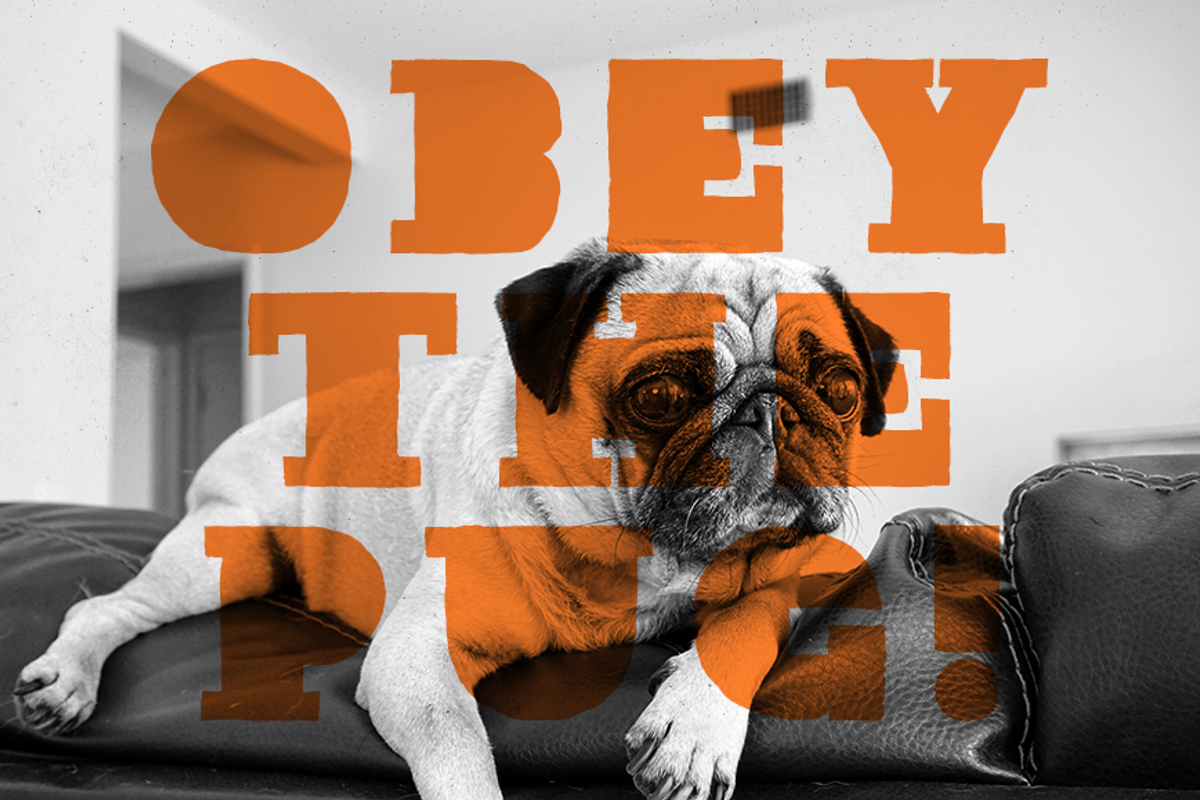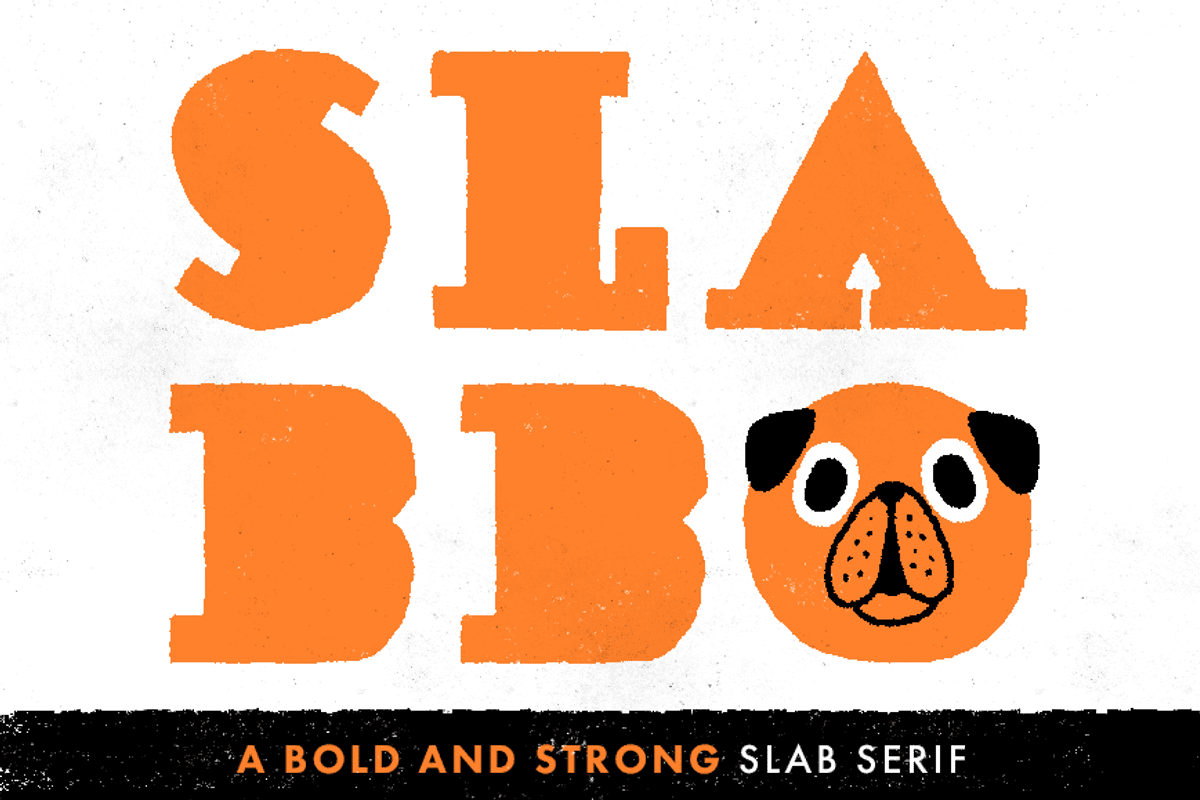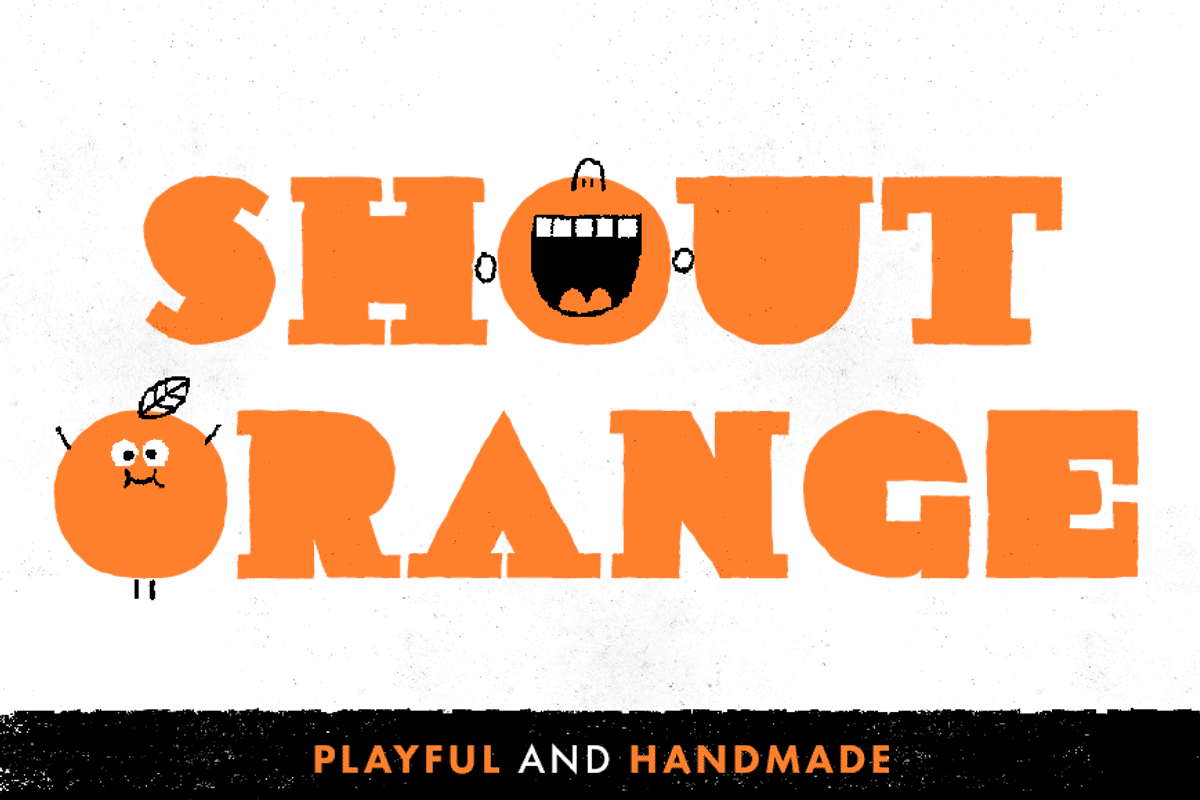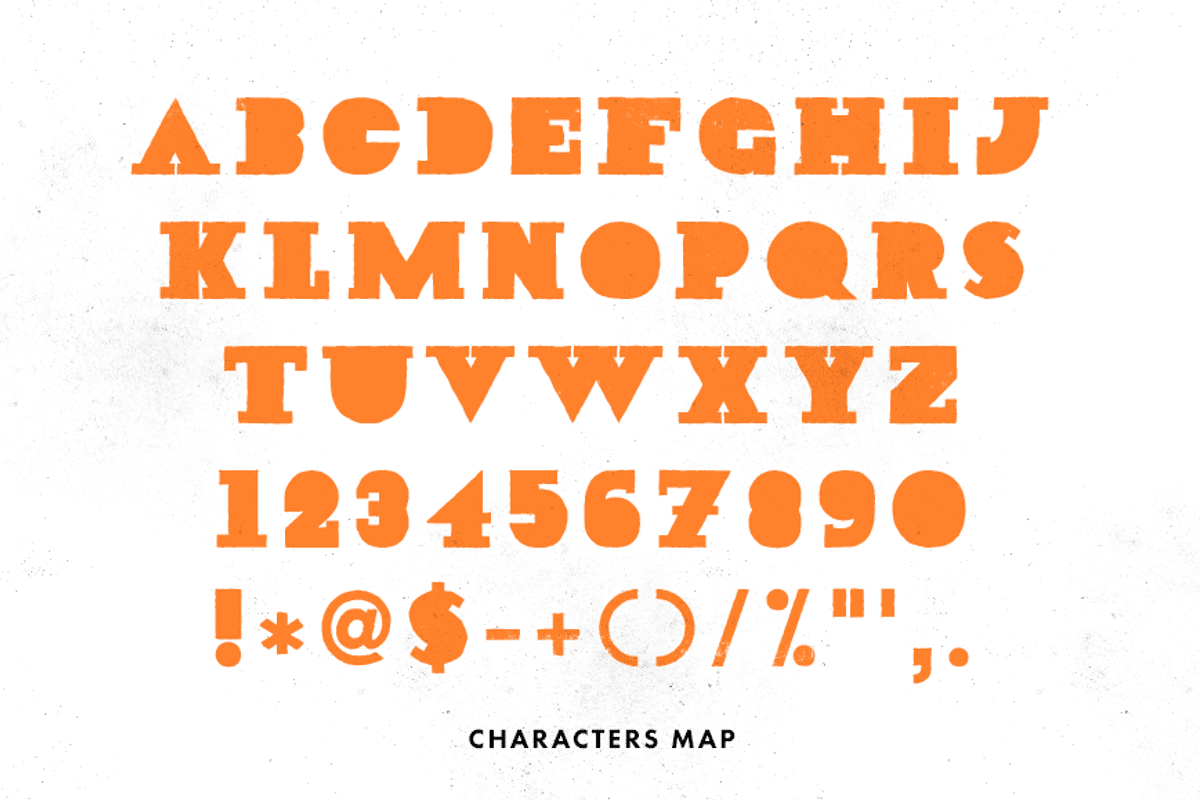
SLABBO font!
SLABBO font! by Mauro Gatti is a font selected for branding, posters, packaging, typography.
- File Include: TTF (sorry, the pug is not included) Slabbo is a playful, handmade and bold slab serif ideal for posters and vintage-like illu
Why SLABBO font! is worth a look
SLABBO font! by Mauro Gatti fits naturally into Branding, posters, packaging, typography.